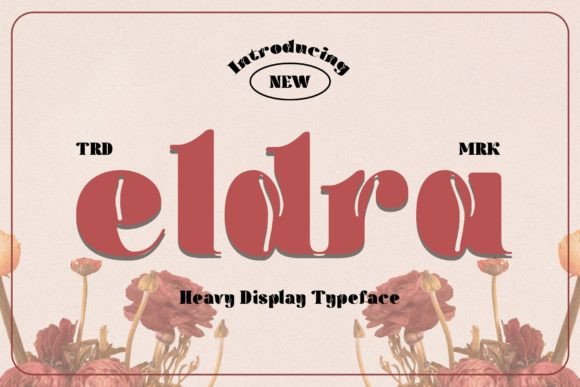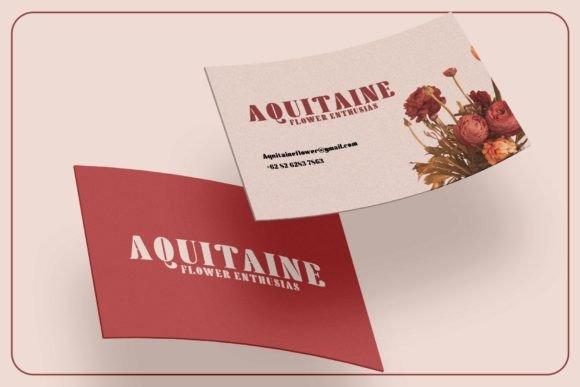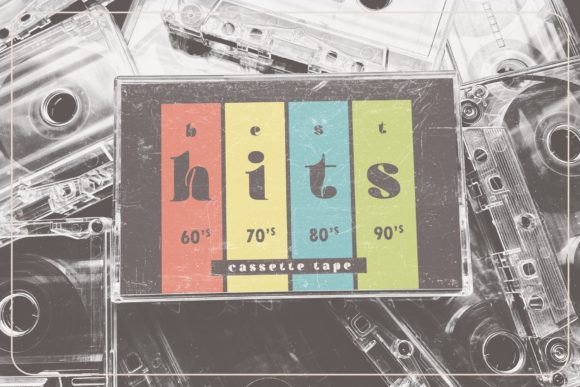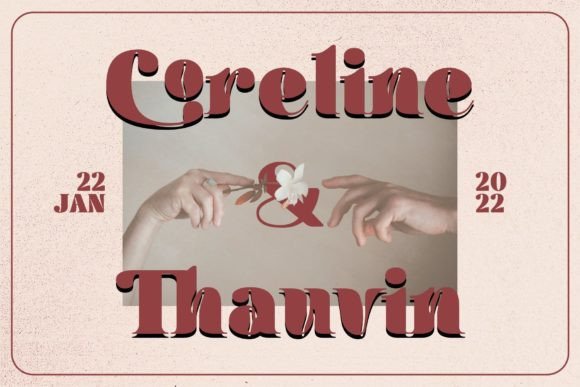
Eldra Font: A Bold Slab Serif for Eye-Catching Logo Design
About the Eldra Font
Let us introduce you to Eldra Font, where timeless design meets modern craftsmanship. Eldra is a heavy slab serif typeface. Great for creating eye-catching headlines and applicable for any type of graphic design web, print, motion graphics, perfect for t-shirts and other items like logos, posters/flyers, branding, packaging, etc.
Eldra’s bold, high-contrast forms make it ideal for headlines, logos, and short impactful statements in branding materials and posters. Its heavy weight ensures readability even at large sizes, making it suitable for packaging where clear communication is crucial. However, its slab serifs and substantial weight are less effective for body text or UI elements requiring high legibility over long stretches. Avoid using it for extensive text blocks.
Its strong personality pairs well with lighter, more delicate fonts for contrast. Consider pairing Eldra with a clean sans-serif like Montserrat for a modern feel, or a classic serif like Garamond for a touch of elegance. A playful script font, such as Pacifico, could also work well for certain applications needing a more expressive touch, depending on the overall brand aesthetic.
Eldra projects a confident and authoritative presence, making it suitable for brands aiming for a strong and memorable identity. It’s a great choice for projects needing a bold statement, such as luxury goods, technology companies, or events requiring a powerful visual presence.